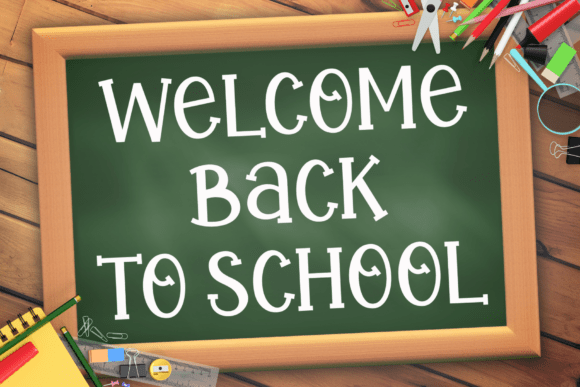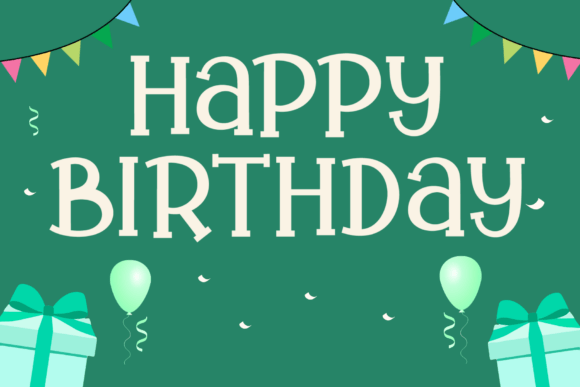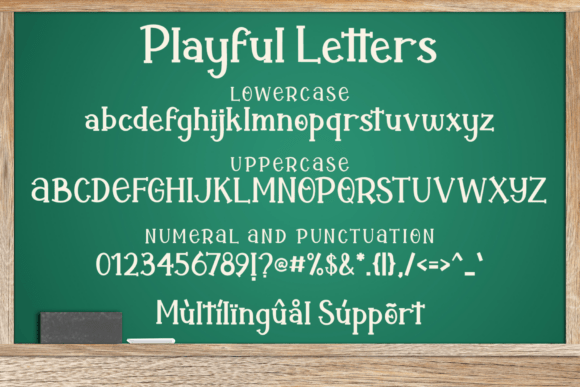
Introduction to Playful Letters Font Font
Fonts play a crucial role in design, and the Playful Letters Font font is a typeface that brings both character and versatility to any project. Whether you’re working on a branding project, a website, or a print design, the Playful Letters Font font offers a unique style that can elevate your work.
Playful Letters is a fun and friendly serif font designed to bring joy to your creative projects.
With its slightly imperfect shapes and playful character, this font captures a relaxed, cheerful feel while still maintaining great readability Itβs perfect for back-to-school designs, kidsβ activities, classroom materials, and educational worksheets.
Key Features of Playful Letters Font Font
Why Choose Playful Letters Font Font?
The Playful Letters Font font is more than just a typeface β it’s a design tool that helps you communicate your message with style and clarity. Its unique character set and versatile design make it suitable for a wide range of applications, from elegant invitations to bold headlines.
With its carefully crafted letterforms and balanced proportions, the Playful Letters Font font ensures readability and visual appeal across all mediums.
What makes Playful Letters Font font special?
The Playful Letters Font font stands out with its unique design, exceptional readability, and versatility across various design applications.